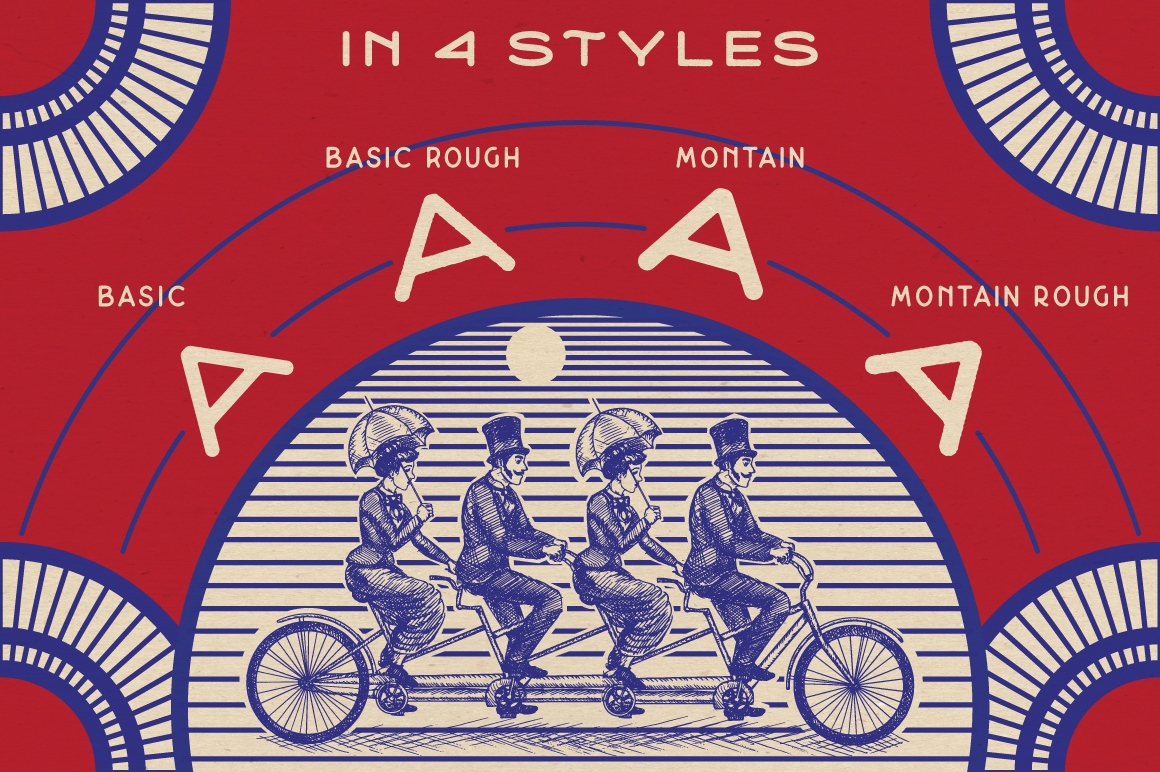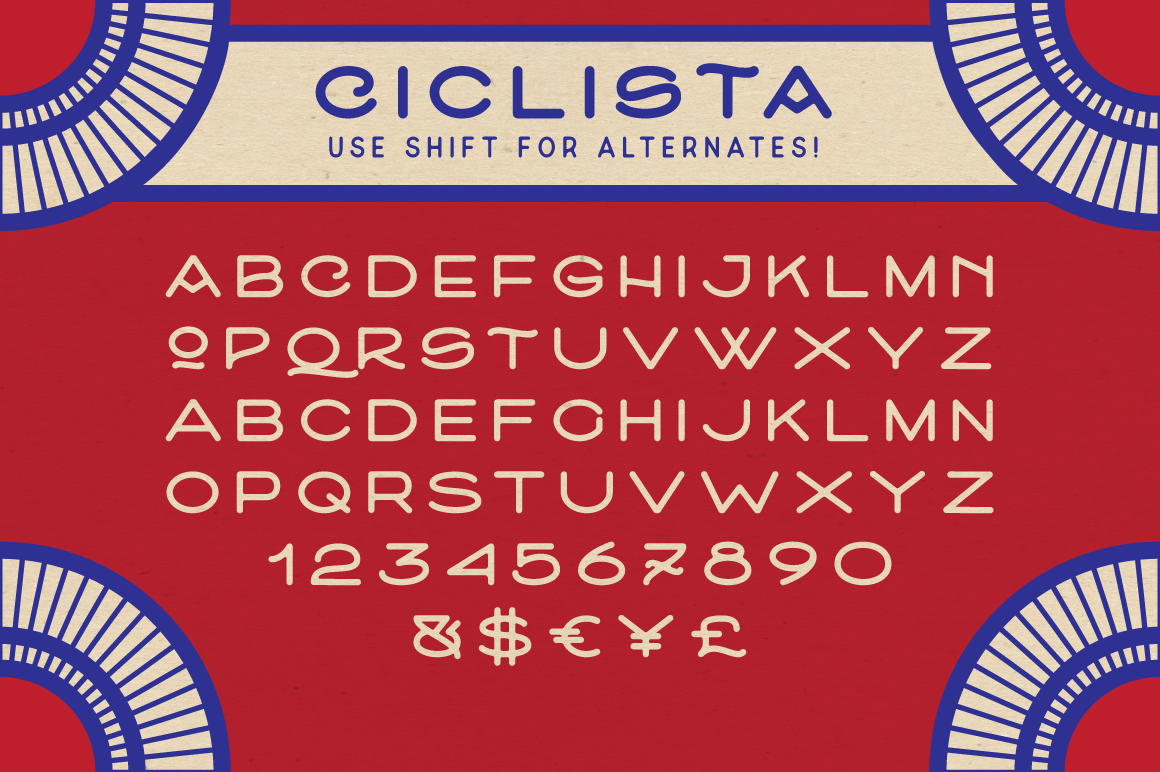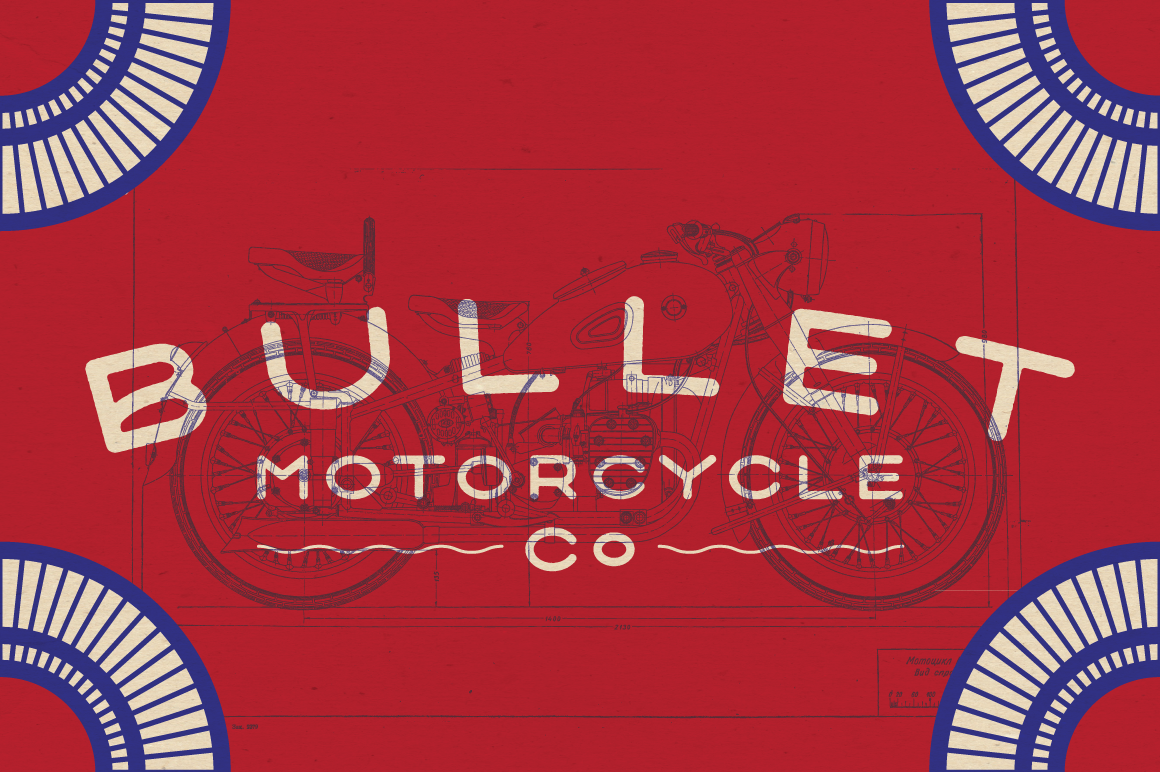
The Perfect Typography for Your Next Creative Project
You know that moment when you’re staring at a blank page, trying to come up with the perfect design concept? The blank slate is daunting, but the thrill of creation is just around the corner. It’s in these moments that the right font can make all the difference. Enter the Clicista Font, an extended sans-serif masterpiece crafted by hand with love and attention to detail.
This beautiful font is inspired by the nostalgia of vintage packaging and sign painting, making it a perfect fit for your next project. With 18 different alternates and four styles to choose from, you’ll have endless possibilities to express your creativity. Whether you’re working on a branding project, a logo, or a social media campaign, the Clicista Font is sure to bring a touch of warmth and personality to your design.
Clicista Font Key Features
- Font Family: Clicista Font is a sans-serif font family designed for digital use.
- Unique Characteristics: Clicista Font features a clean and modern design with a subtle rounded edge, making it suitable for digital interfaces and user-friendly applications.
Clicista Font Review
I’ve had the chance to work with the Clicista font, and I must say it’s an interesting choice for designers. Here are my thoughts.
- Clicista has a unique and playful aesthetic that’s perfect for projects that need a touch of whimsy.
- The font’s bold and italic variations add a lot of flexibility to your designs.
- The font’s readability can suffer at smaller font sizes, which may be a concern for text-heavy projects.
- The font’s irregular shapes can make it challenging to pair with other fonts, especially those with more traditional or serif styles.
- The font’s OpenType features, while useful, can be overwhelming for designers who aren’t familiar with them.
Clicista is a bold and eye-catching font that’s perfect for designers who want to add some personality to their projects. While it may have some limitations, the font’s unique aesthetic and flexibility make it a great choice for the right project. Just be aware of its potential drawbacks and use it wisely.
Clicista Font is suitable for a wide range of design applications, including:
- Website and social media graphics